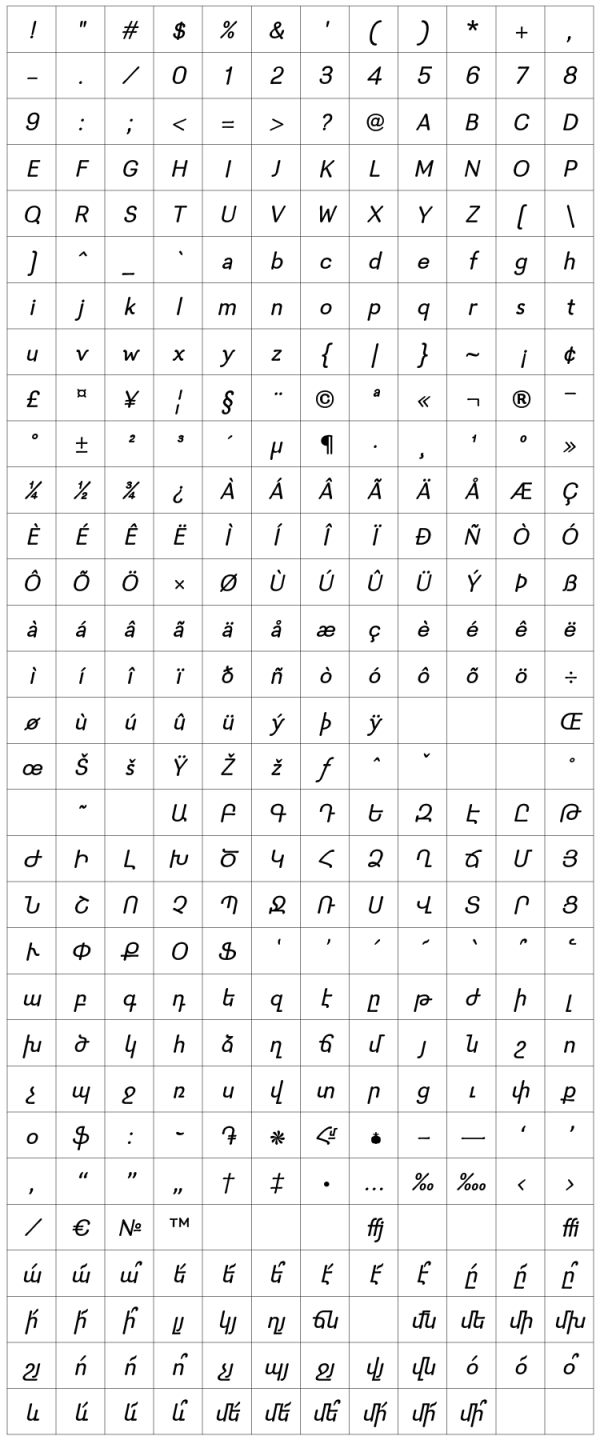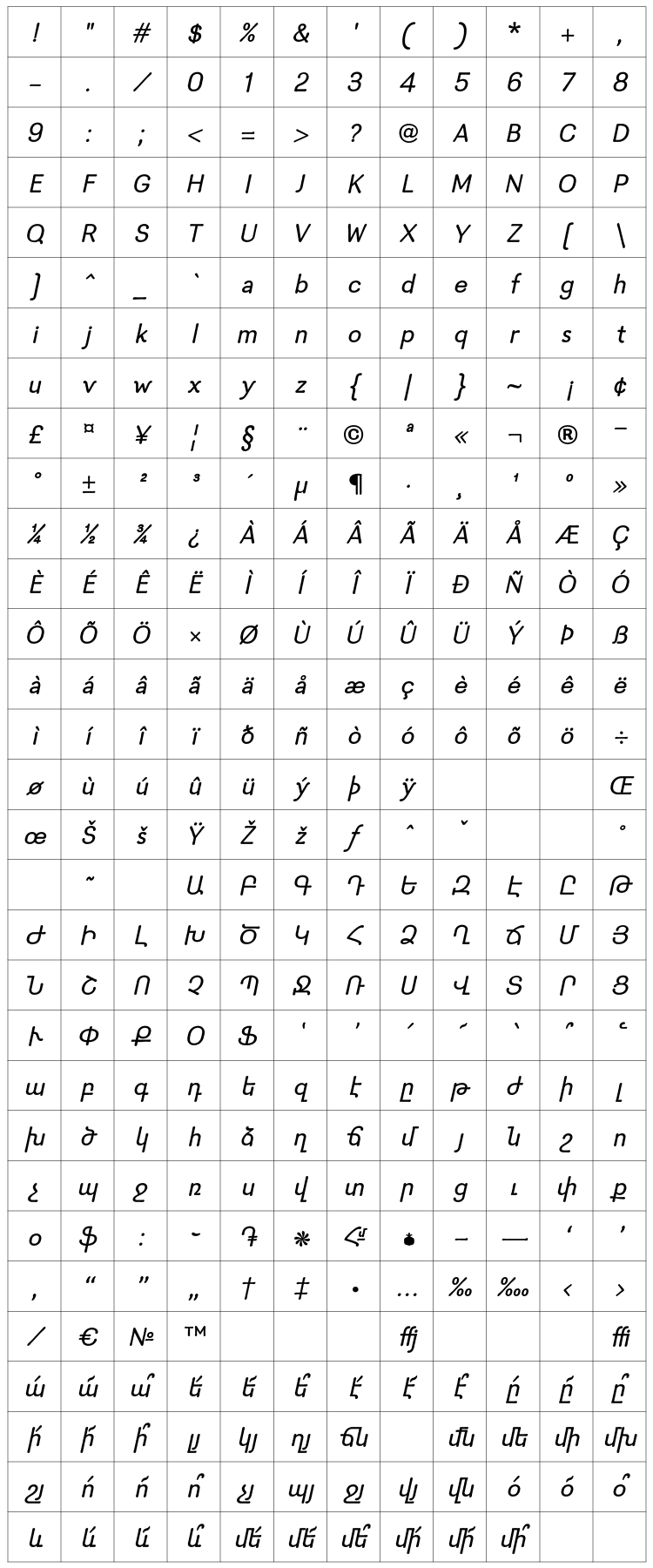
HASH Eva Italic
Designer: Hrachuhi Grigoryan
Design date: 2017
This typefaces was awarded 1-s prize at the GRANSHAN 2017 non-Latin typedesign competition.
The font family includes: Armenian and Latin alphabet systems.
This font can be used as display and text font.